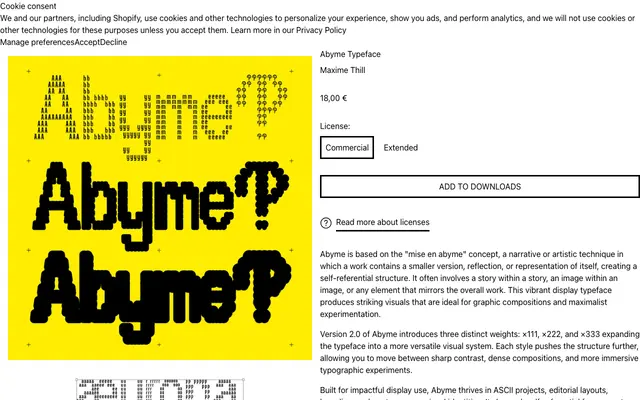
Abyme Typeface
A self-referential display typeface by Maxime Thill built on the mise en abyme concept, offering three weight styles suited to maximalist and experimental graphic work.
Derived from the ÆUROPA Typeface, Abyme uses a layered, self-referential structure to create bold, graphic letterforms across three styles: ×111, ×222, and ×333. Each weight pushes the visual density further, moving from sharp contrast to immersive, dense compositions. The 81-glyph set is aimed at editorial layouts, ASCII projects, branding and contemporary visual identities.
A self-referential, layered display typeface built for maximalist and experimental graphic use, with no conventional text application intended.